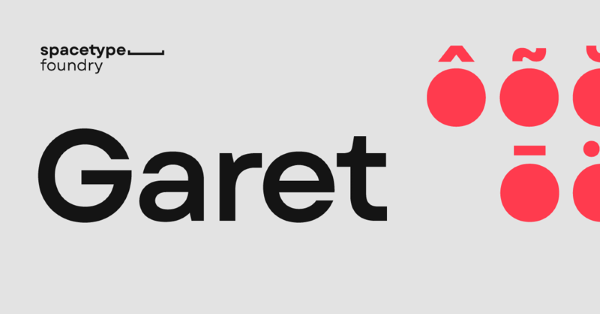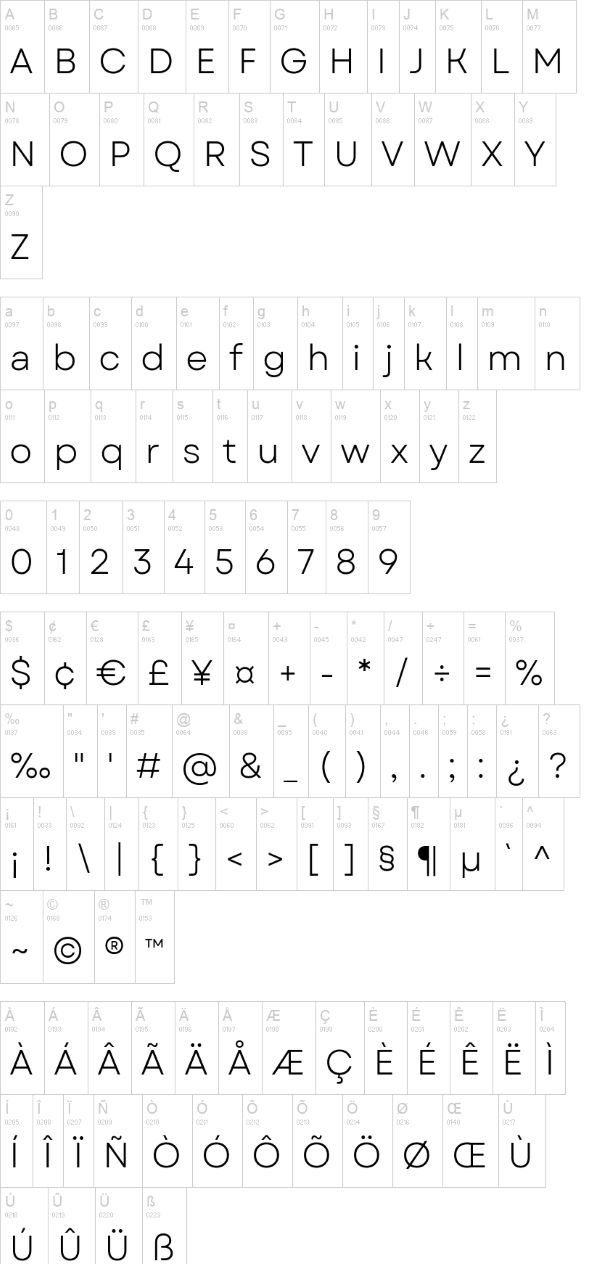
Garet Font
Garet font
Garet Font is a geometric sans-serif typeface with a soft, friendly character. Designed by Stan Partalev and Mirela Belova, it combines clean structure with gentle curves, creating excellent readability. Garet works well for branding, web design, UI, editorial layouts, and modern typography projects that require clarity, balance, and a contemporary yet approachable visual style.
➤ Font Name: Garet
➤ Designer: Type Forward Foundry
➤ Style: Sans serif